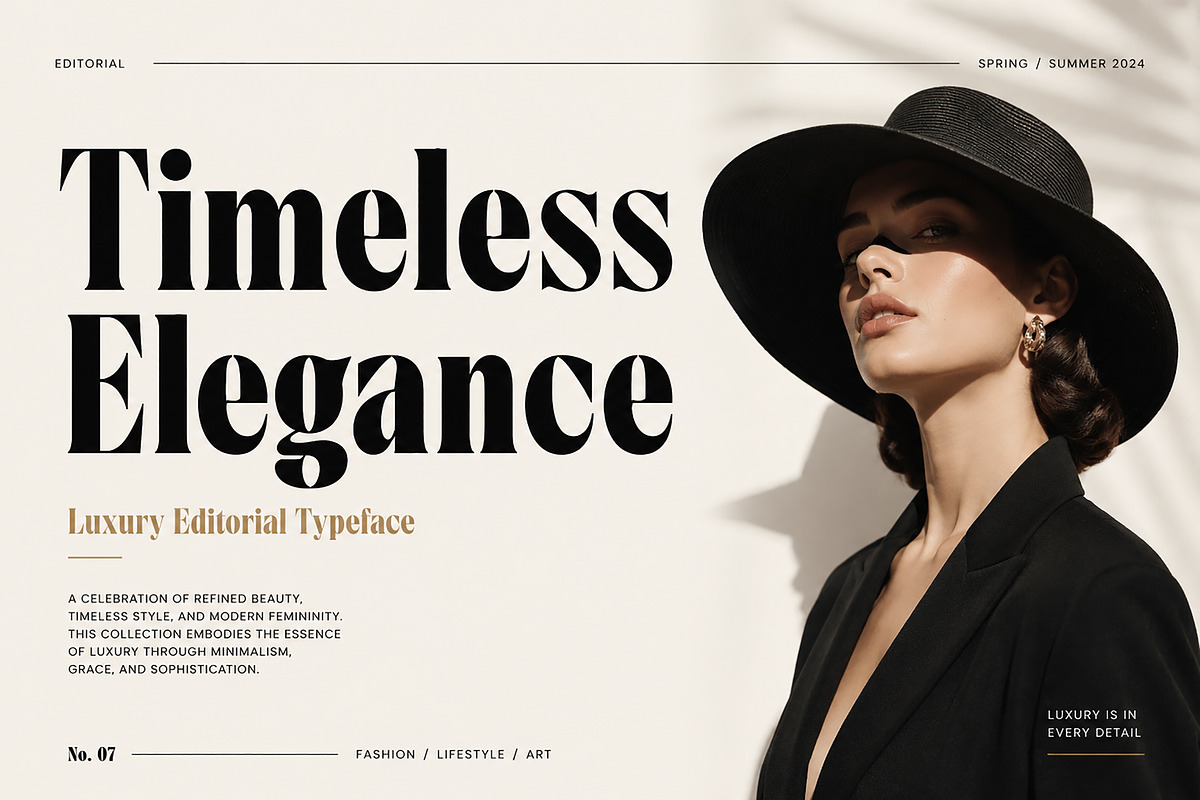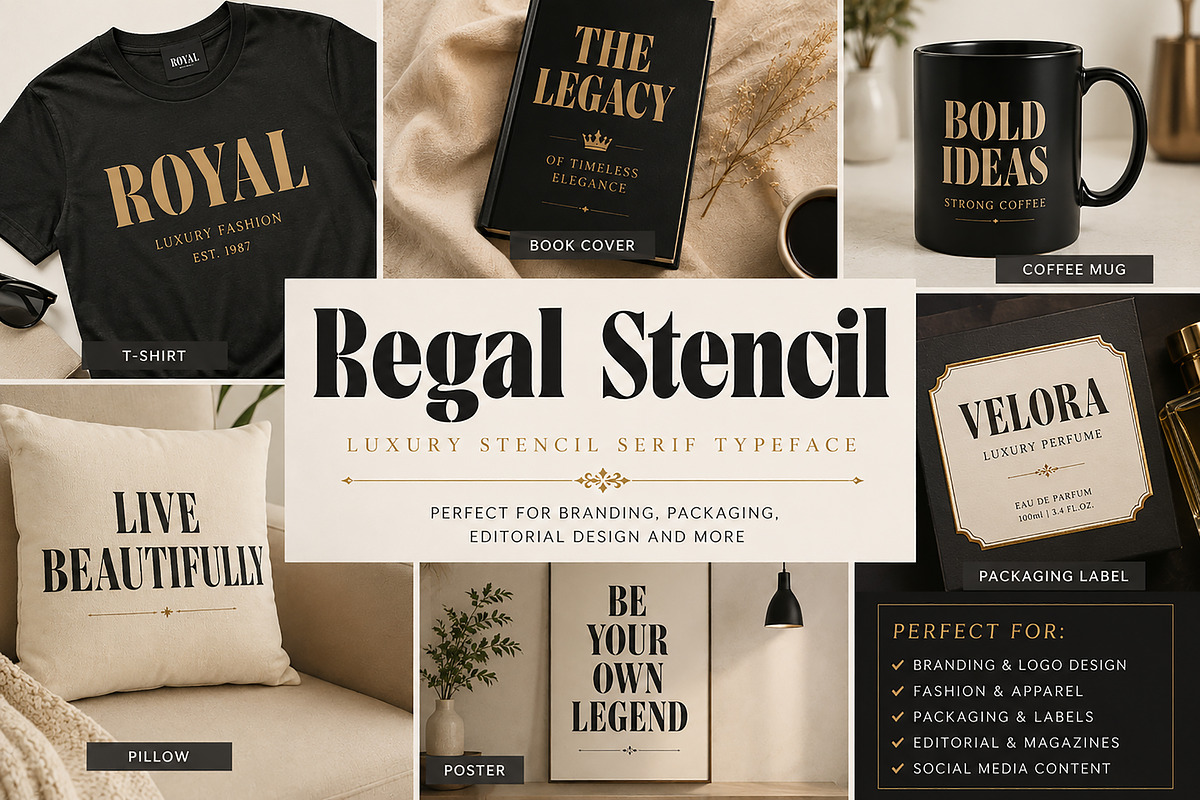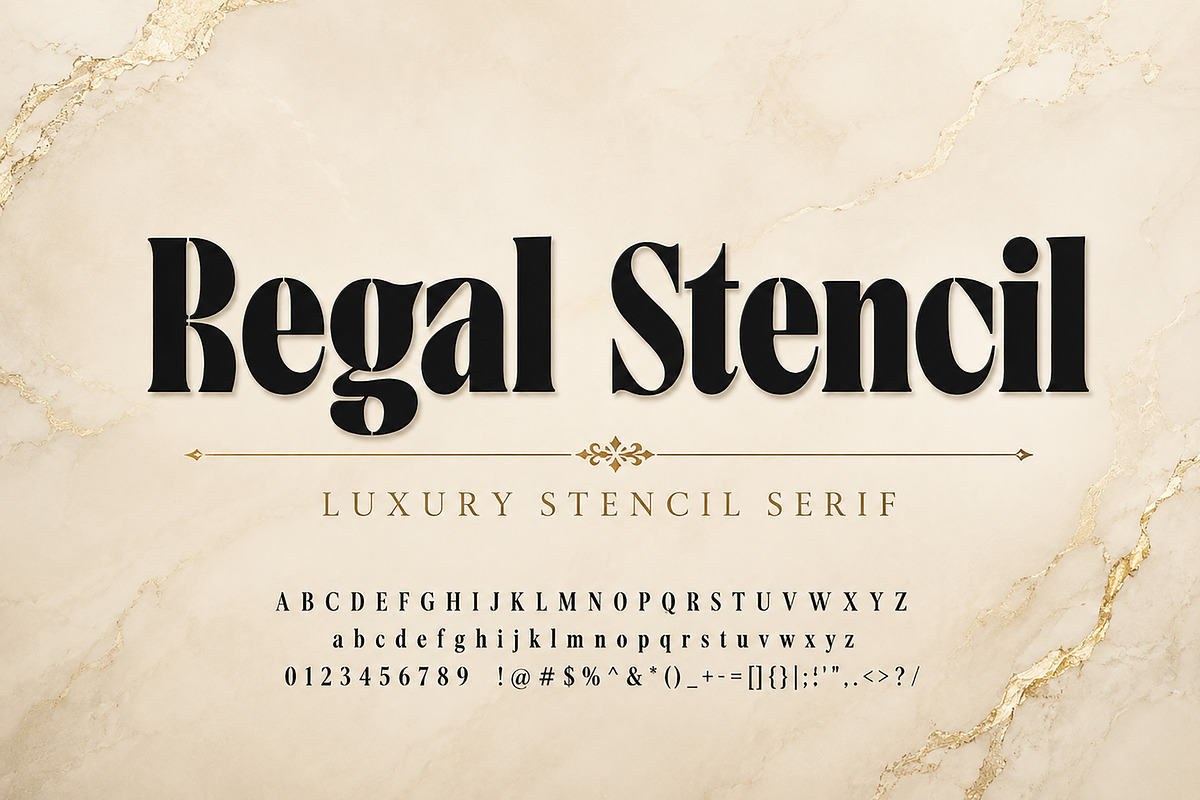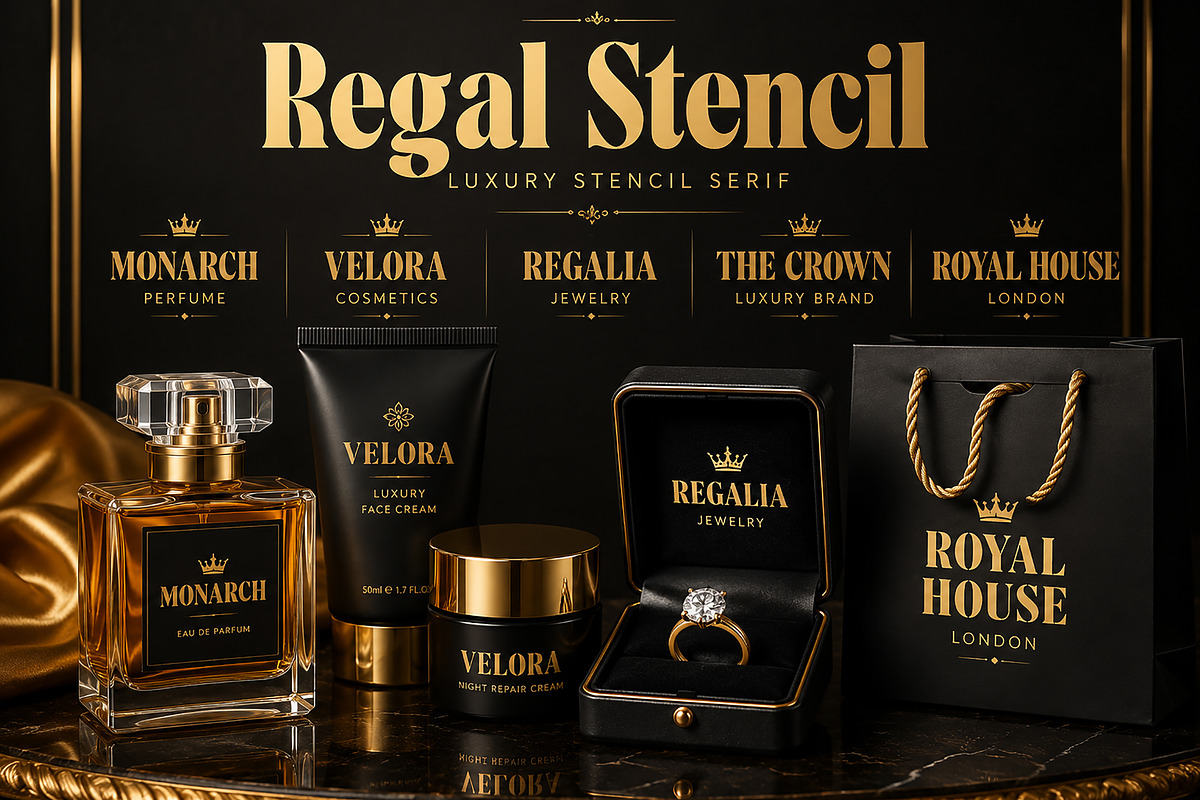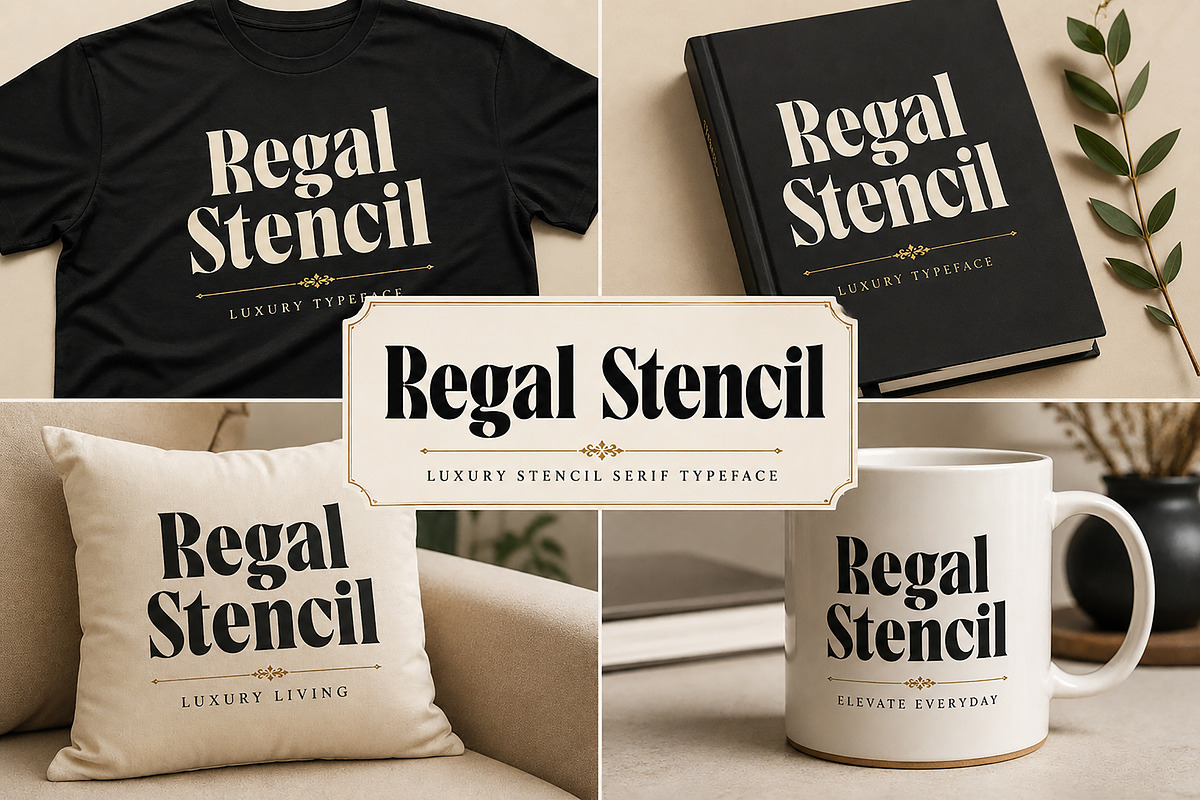
Regal Stencil
Regal Stencil – Luxury Stencil Serif Font
Regal Stencil is a sophisticated luxury stencil serif typeface crafted for designers who want to create bold, elegant, and unforgettable visual identities. Combining classic serif elegance with distinctive stencil details, this font delivers a refined balance of vintage charm and modern luxury.
Perfect for premium branding, fashion editorials, logo design, packaging, magazine headlines, cosmetic brands, jewelry collections, luxury product labels, invitations, and high-end marketing materials.
Its unique stencil cuts add character and exclusivity while maintaining excellent readability, making Regal Stencil an ideal choice for projects that demand both sophistication and visual impact.
Luxury Branding
Fashion Logos
Editorial Design
Magazine Headlines
Cosmetic Packaging
Perfume Labels
Jewelry Branding
Boutique Branding
Posters & Advertising
Premium Product Packaging
Uppercase Letters
Lowercase Letters
Elegant Stencil Details
High-Quality Kerning
Whether you're building a luxury fashion brand, designing premium packaging, or creating eye-catching editorial layouts, Regal Stencil will help your designs stand out with confidence and elegance.